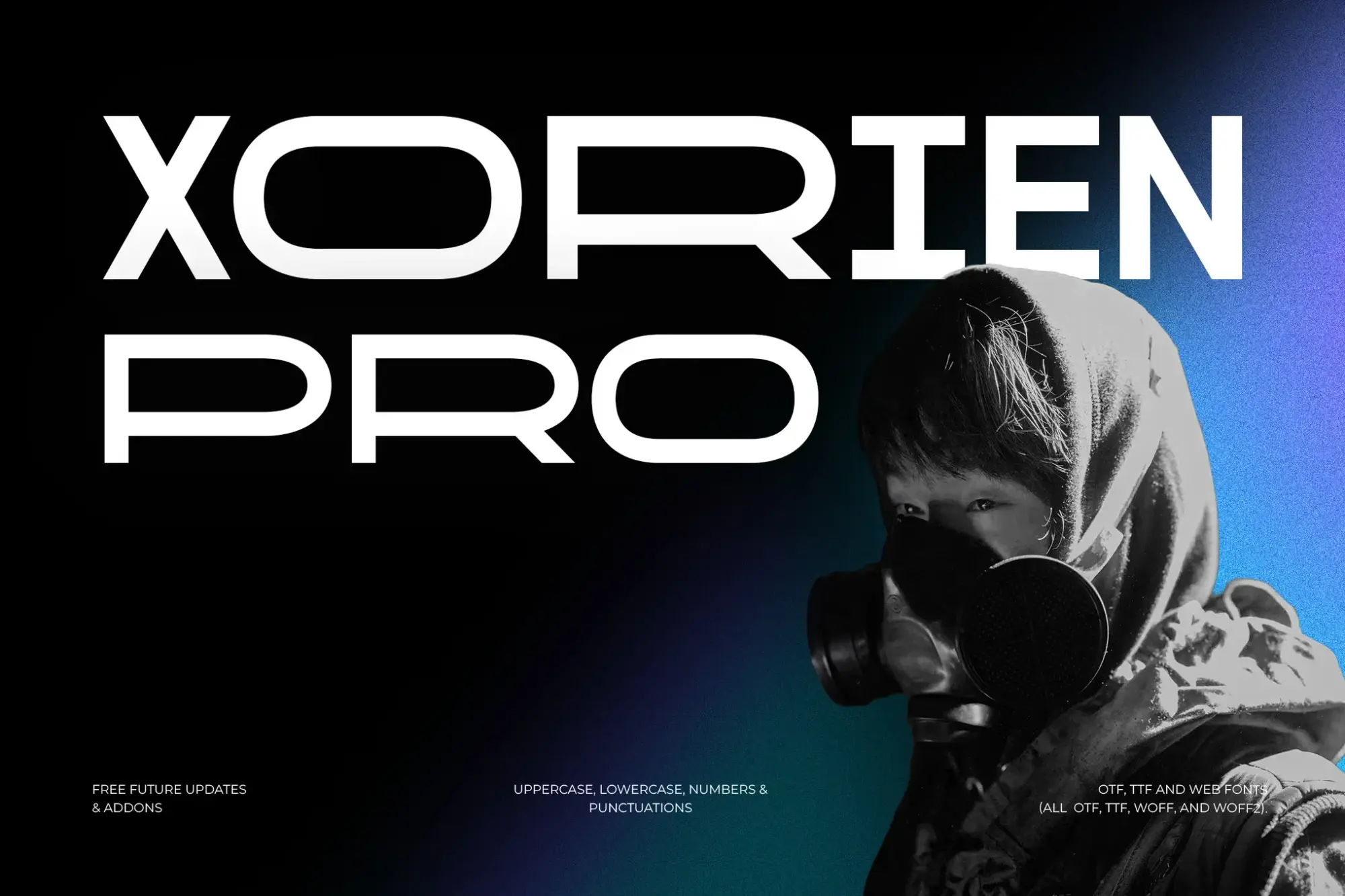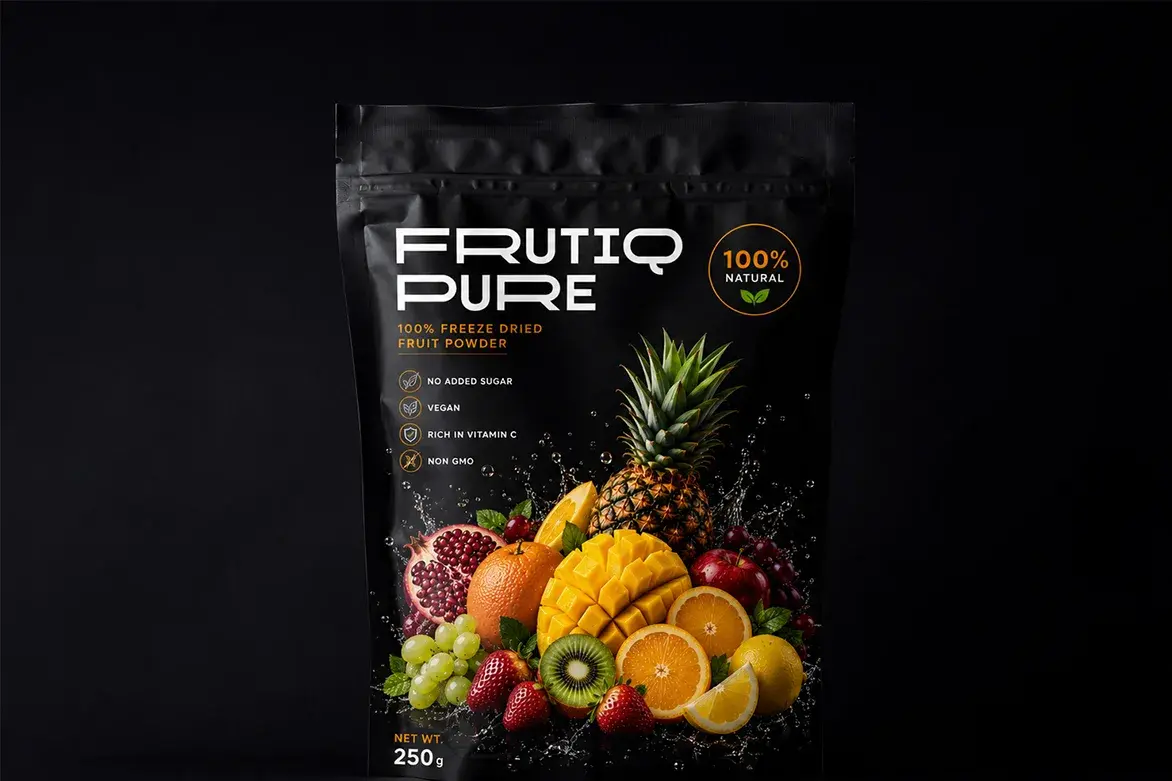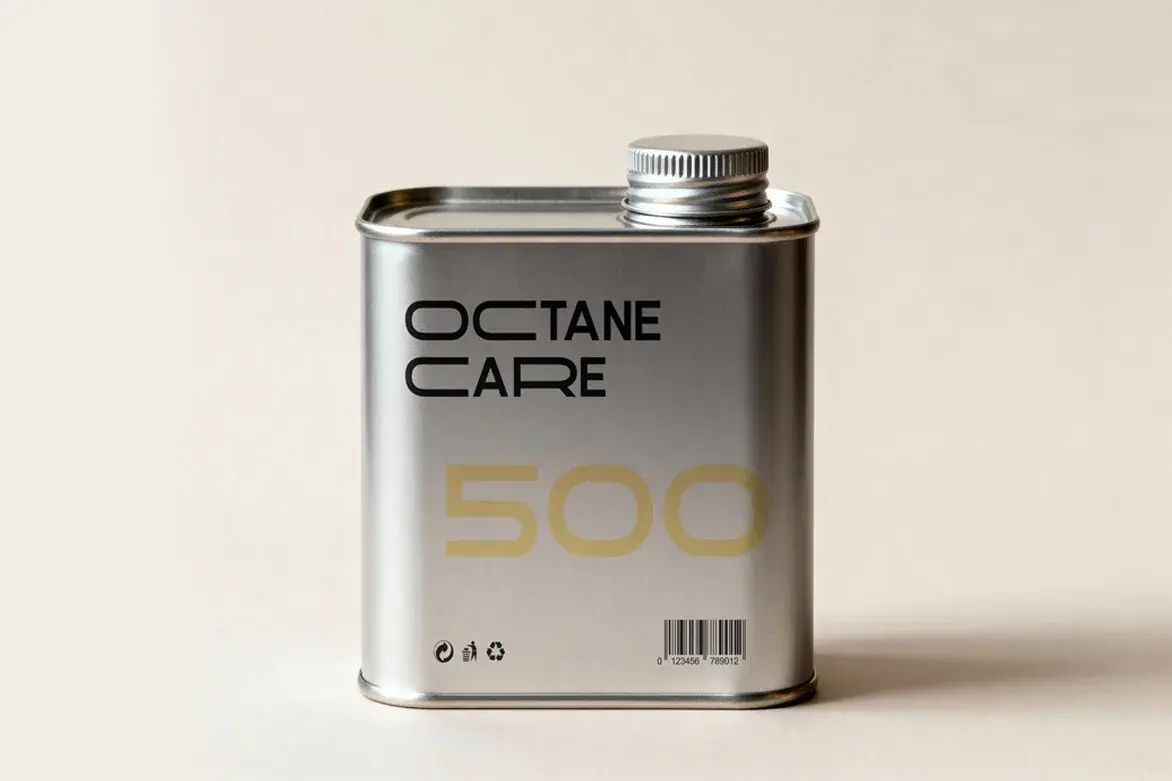
Xorien Display
Overview
Xorien Display is an ultramodern sans-serif font designed for impactful visual communication. Its clean lines and futuristic aesthetic make it ideal for branding, social media, and packaging. With a versatile style, Xorien Display enhances both print and digital projects, making it a go-to choice for designers looking to elevate their work.
Design Traits
- Geometric shapes create a modern feel.
- Generous spacing enhances readability.
- A balanced tone suitable for various applications.
- Clear letterforms ensure visibility at different sizes.
Key Features
- Multiple weights available, including italics.
- Extensive character support for diverse languages.
- Optimized for both print and screen performance.
Best Use Cases
- Perfect for Instagram and TikTok graphics.
- Ideal for logotypes and brand identities.
- Great for packaging design and labels.
- Effective for YouTube thumbnails and social media posts.
- Suitable for elegant print materials like brochures and flyers.
Why Designers Choose Xorien Display
- Offers a contemporary, stylish look.
- Highly versatile for various design projects.
- Enhances brand recognition through its unique character.
- Easy to read, ensuring effective communication.
- Supports a wide range of applications from digital to print.